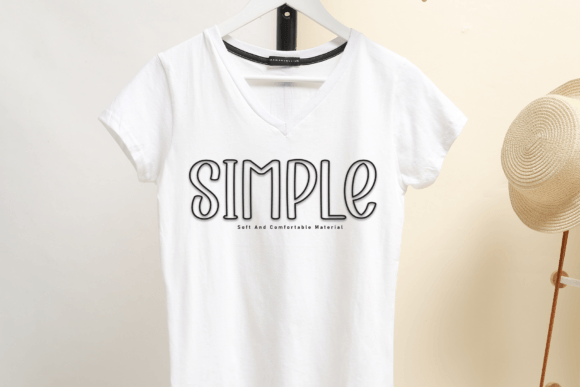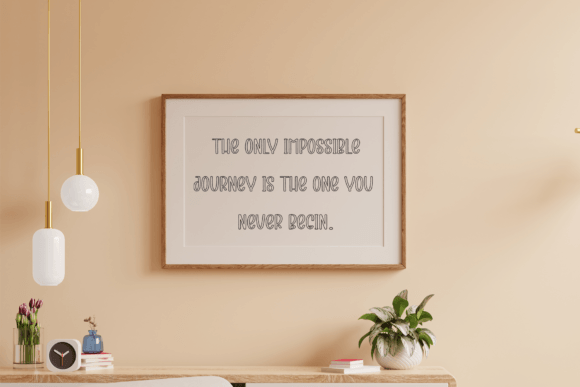
Baby Hoodie Font
Baby Hoodie is a cute and playful outline display font. Its rounded letters give a soft, friendly feel, making it perfect for kids’ designs, invitations, or anything fun. The open spaces in the letters make it easy to read and great for bright and cheerful projects.